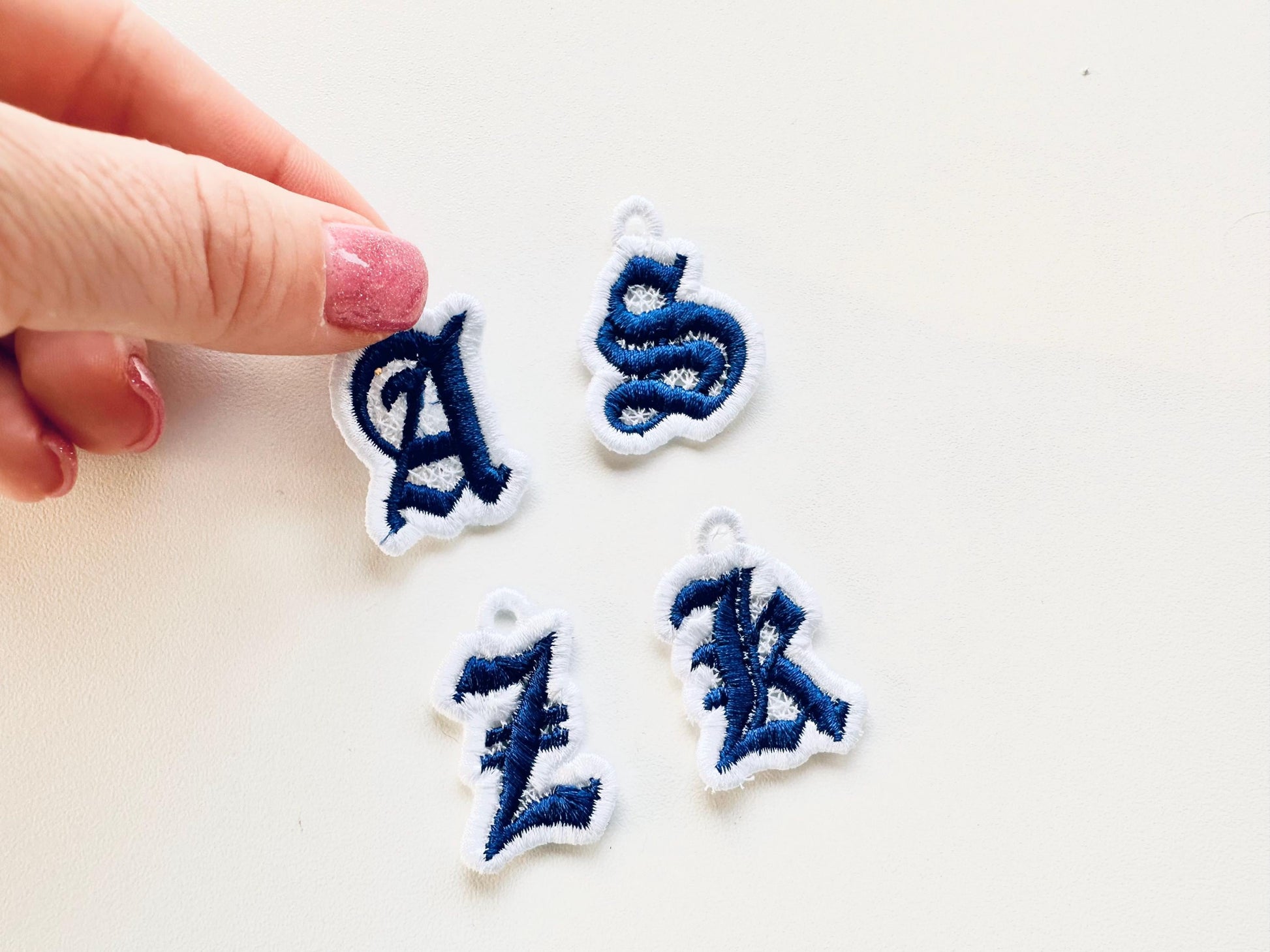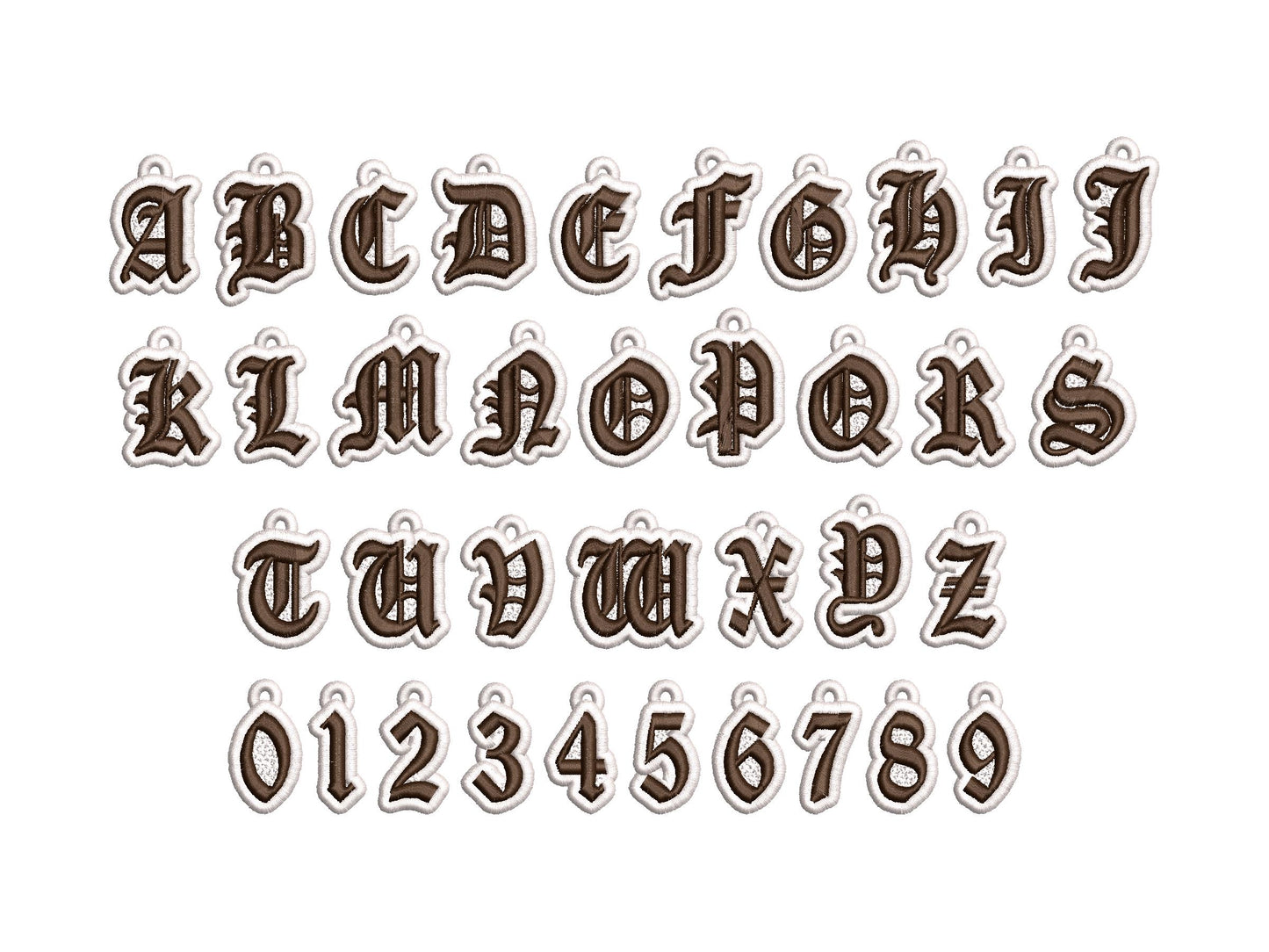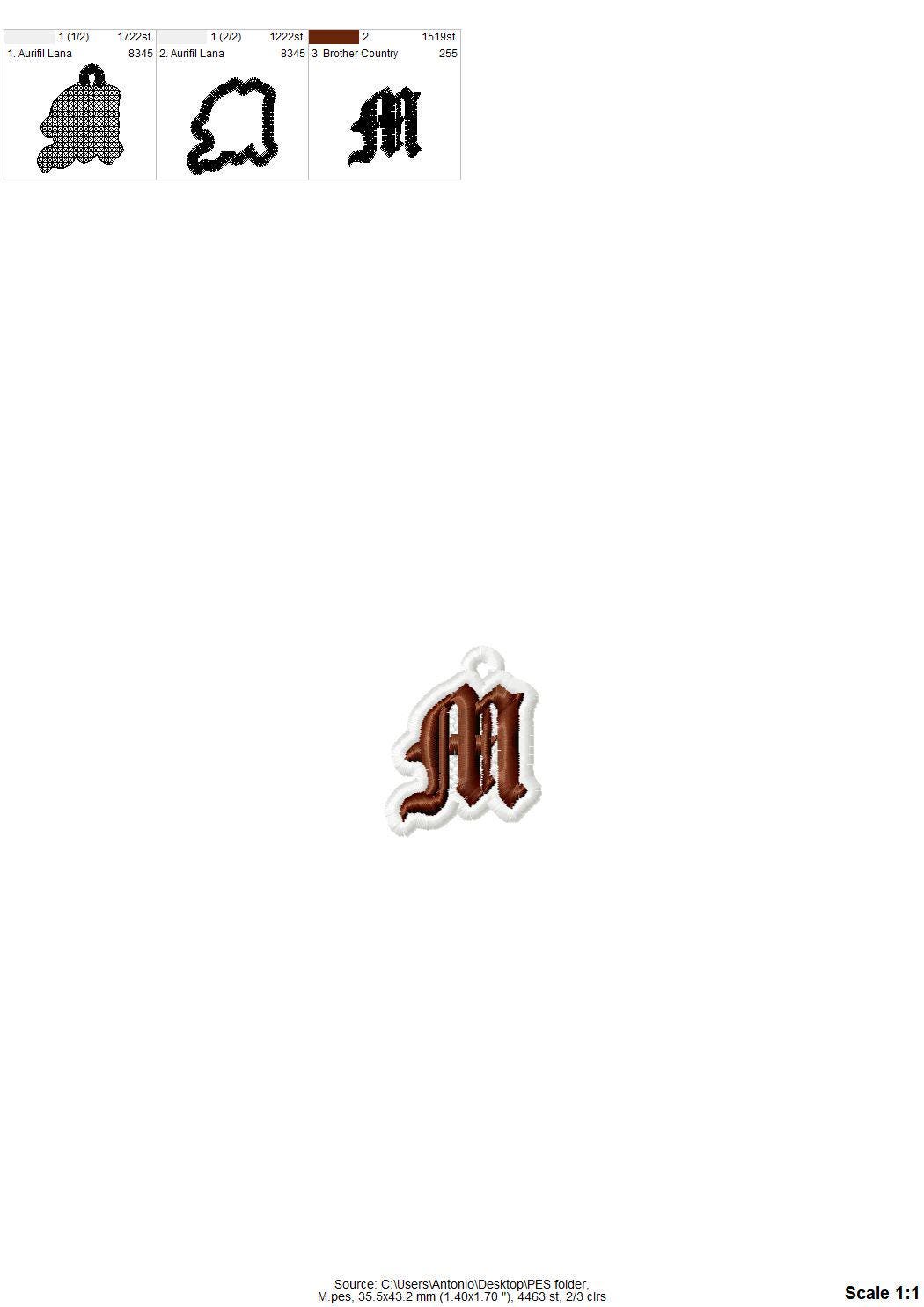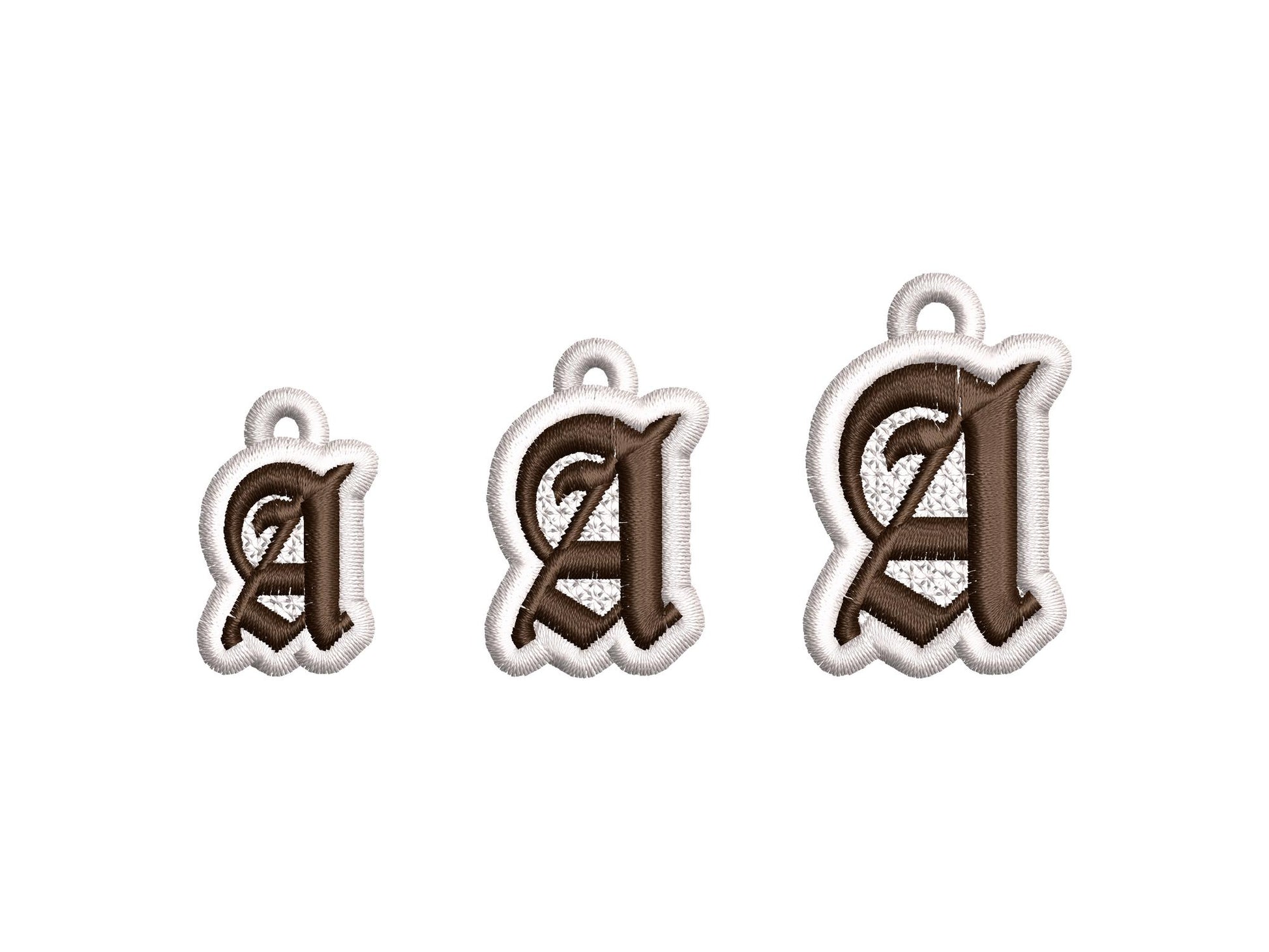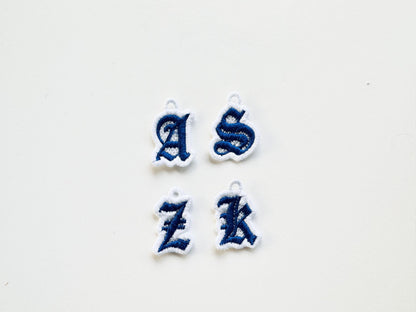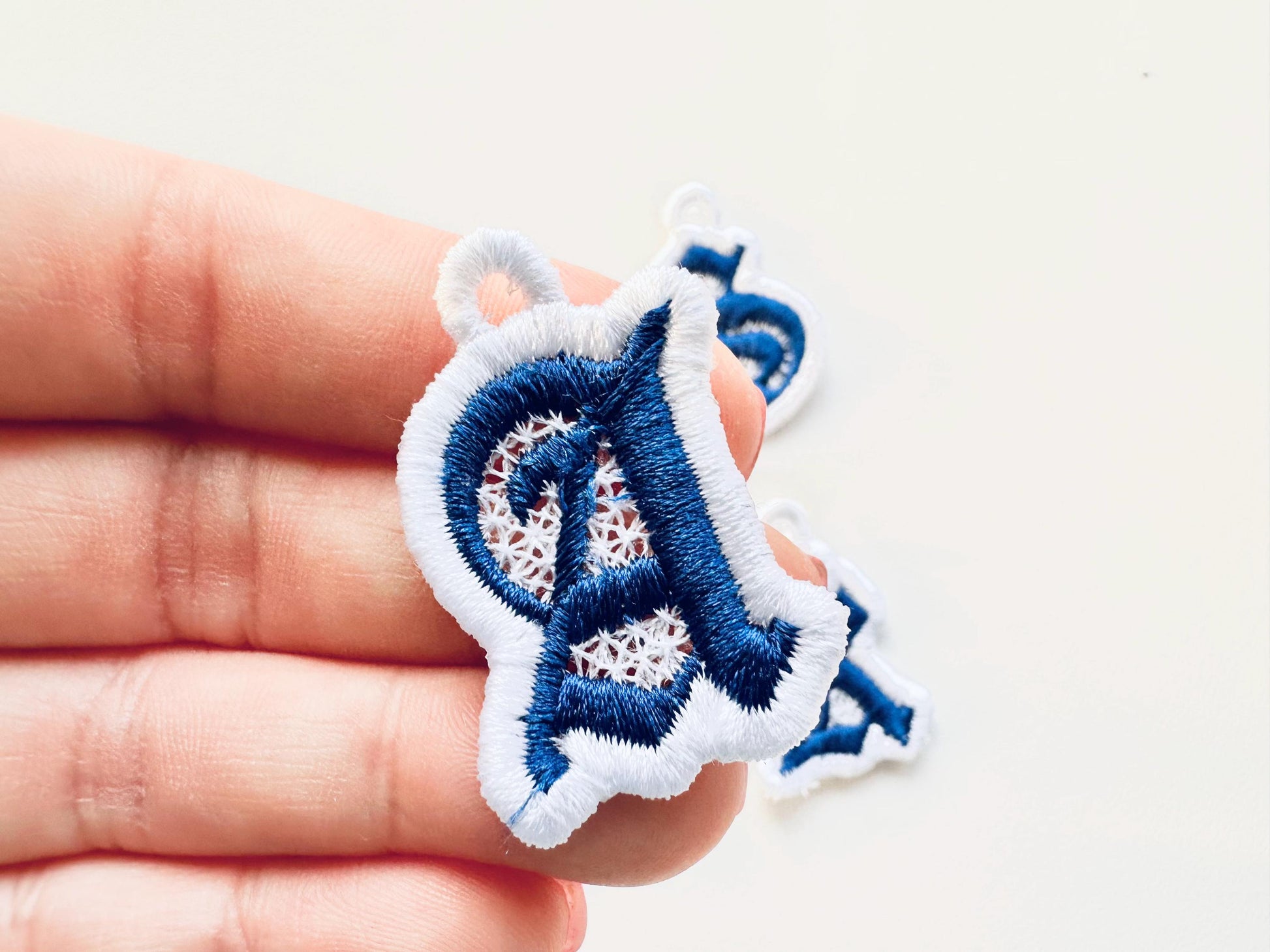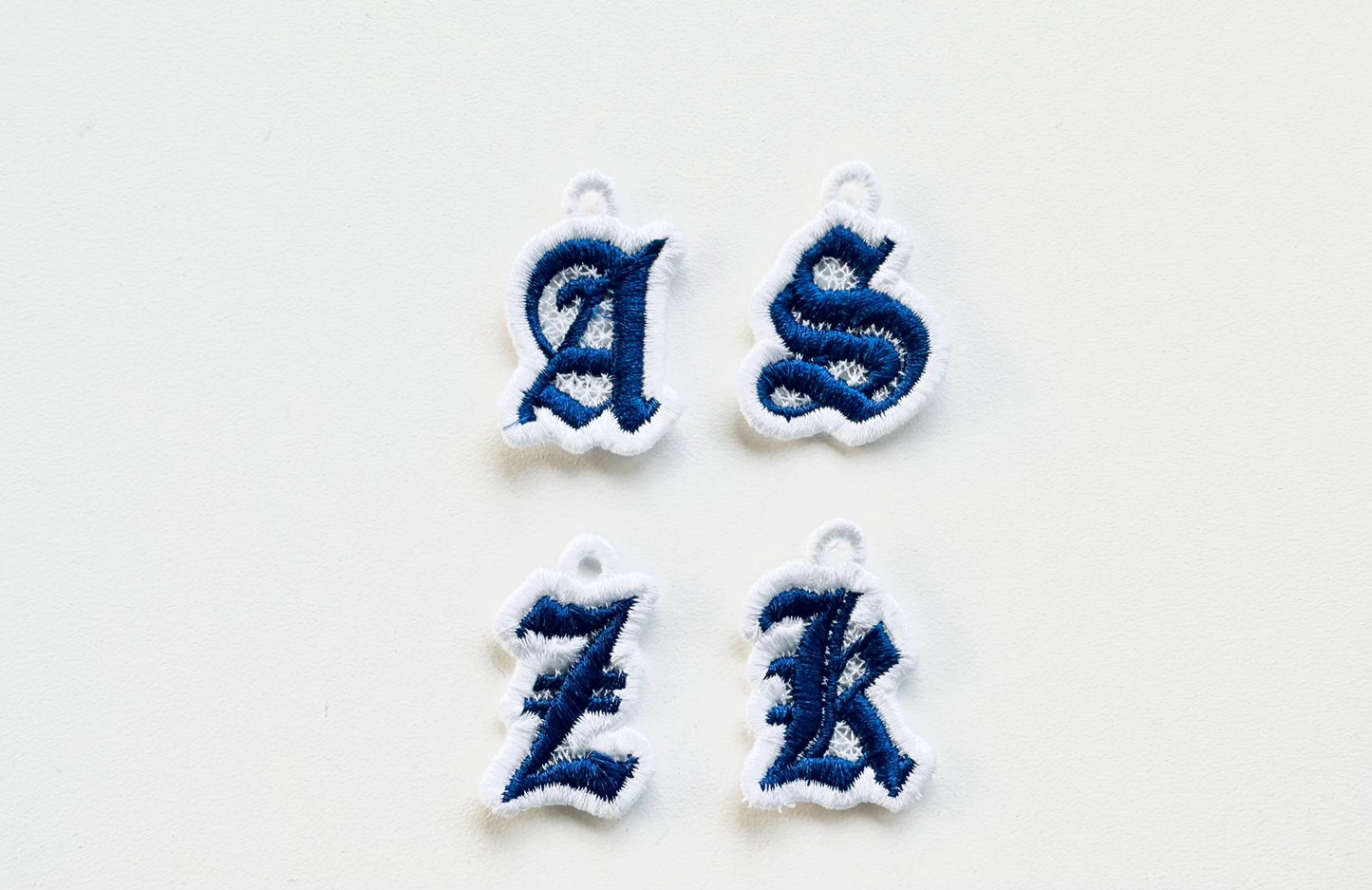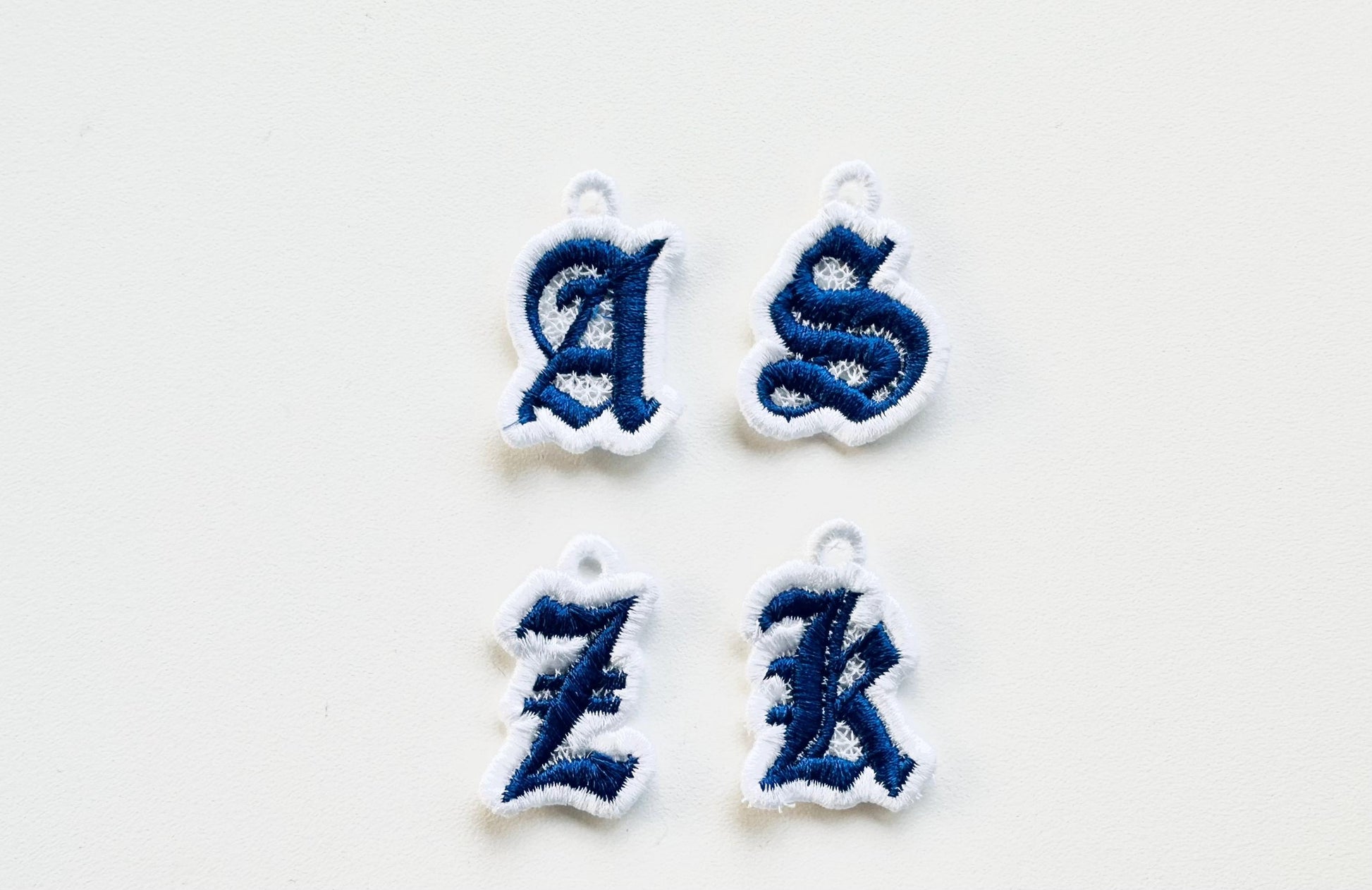
Old English Lace Font FSL
Or click to open the linkOld English freestanding lace hanging letters, for charm pendants, earrings, key rings and little gifts.
Uppercase A to Z and numbers 0 to 9 in three heights: 1.3, 1.6 and 1.9 inches. Stitched on water-soluble stabilizer, then rinsed, so no fabric is needed.
- Old English freestanding lace letters
- Uppercase A-Z and numbers 0-9
- 3 sizes: 1.3, 1.6 and 1.9 in